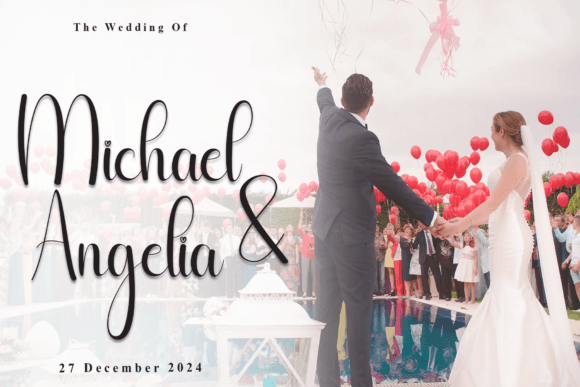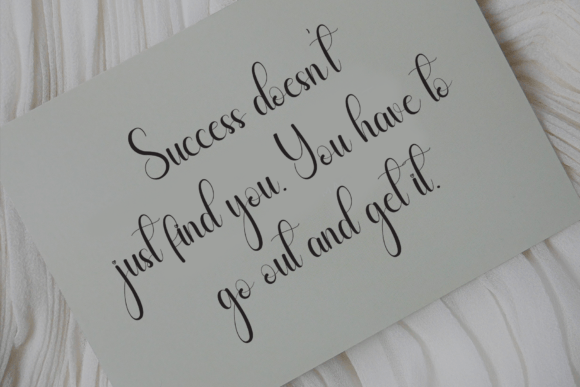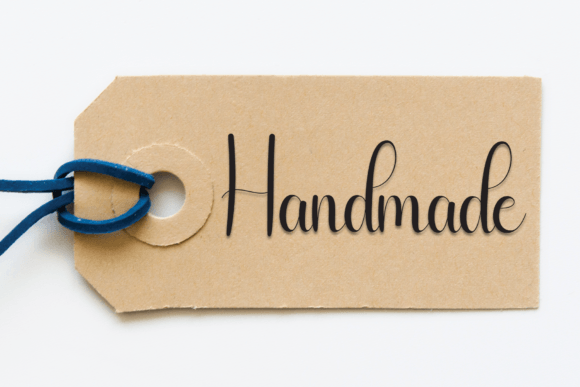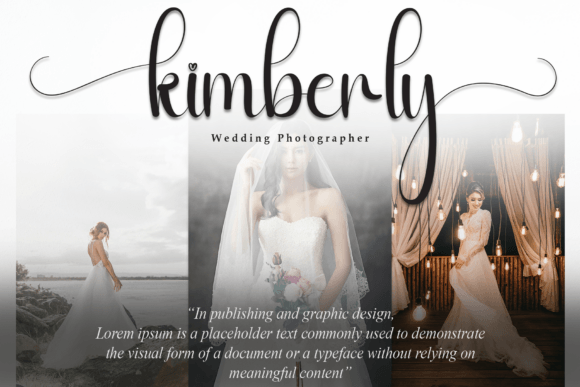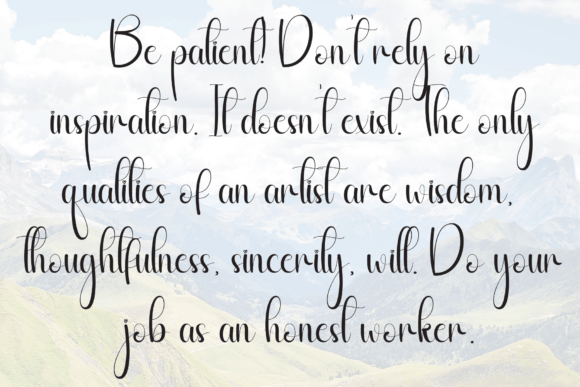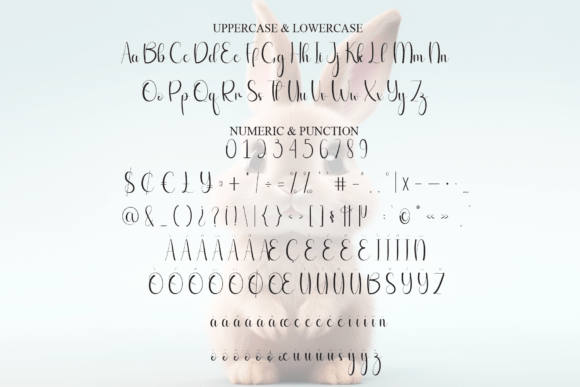
The Perfect Touch: Introducing Bunny Font
There’s nothing quite like the thrill of bringing a new design project to life. The blank page stares back at you, a canvas waiting for your creative touch. You start brainstorming ideas, flipping through inspiration boards, and scrolling through font libraries. And then, it happens – you stumble upon the perfect font. For some designers, that moment came when they discovered the Bunny Font, a stylish handwritten script that adds a touch of elegance to any design.
Bunny Font is more than just a pretty face; it’s a versatile tool for designers looking to elevate their branding, invitations, and stationery. Its fluid, graceful strokes create a timeless, refined look that’s perfect for adding a personal and sophisticated touch to any project. Whether you’re working on a high-end wedding invitation or a new logo for a fashion brand, Bunny Font is a valuable asset to have in your design toolkit.
- Unique Characteristics: Bunny Font features a playful, hand-drawn design with a mix of rounded and angular elements, giving it a distinctive and whimsical feel.
Bunny Font Review
I recently had the chance to work with the “Bunny Font” and I must say, it’s a unique addition to any design project. Here are my thoughts on what works well and what could be improved.
- Hand-drawn feel: The font has a lovely hand-drawn feel that gives it a personal touch.
- Playful vibe: The font is perfect for designs that need a playful and whimsical feel.
- Customization options: The font comes with various customization options that allow you to adjust the color, size, and style to fit your needs.
- Limited legibility: At smaller font sizes, the font can become difficult to read.
- Not ideal for body text: The font is best suited for headings and titles, as it can be overwhelming for large blocks of body text.
- No bold or italic versions: The font is available in regular and bold styles, but there is no italic version available.
Overall, I think the “Bunny Font” is a great addition to any design project that requires a playful and whimsical feel. While it has some limitations, it’s definitely worth considering for the right project.
The Bunny Font is commonly used in:
– Children’s book illustrations
– Cartoon-style graphics
– Whimsical branding and marketing materials
– Any project that requires a playful and approachable tone.
To get the most out of the Bunny Font, use it in conjunction with bright, pastel colors and playful graphics. Avoid using it in formal or professional contexts, as it may come across as immature or unprofessional. Experiment with different font sizes and styles to create visual interest and emphasis.